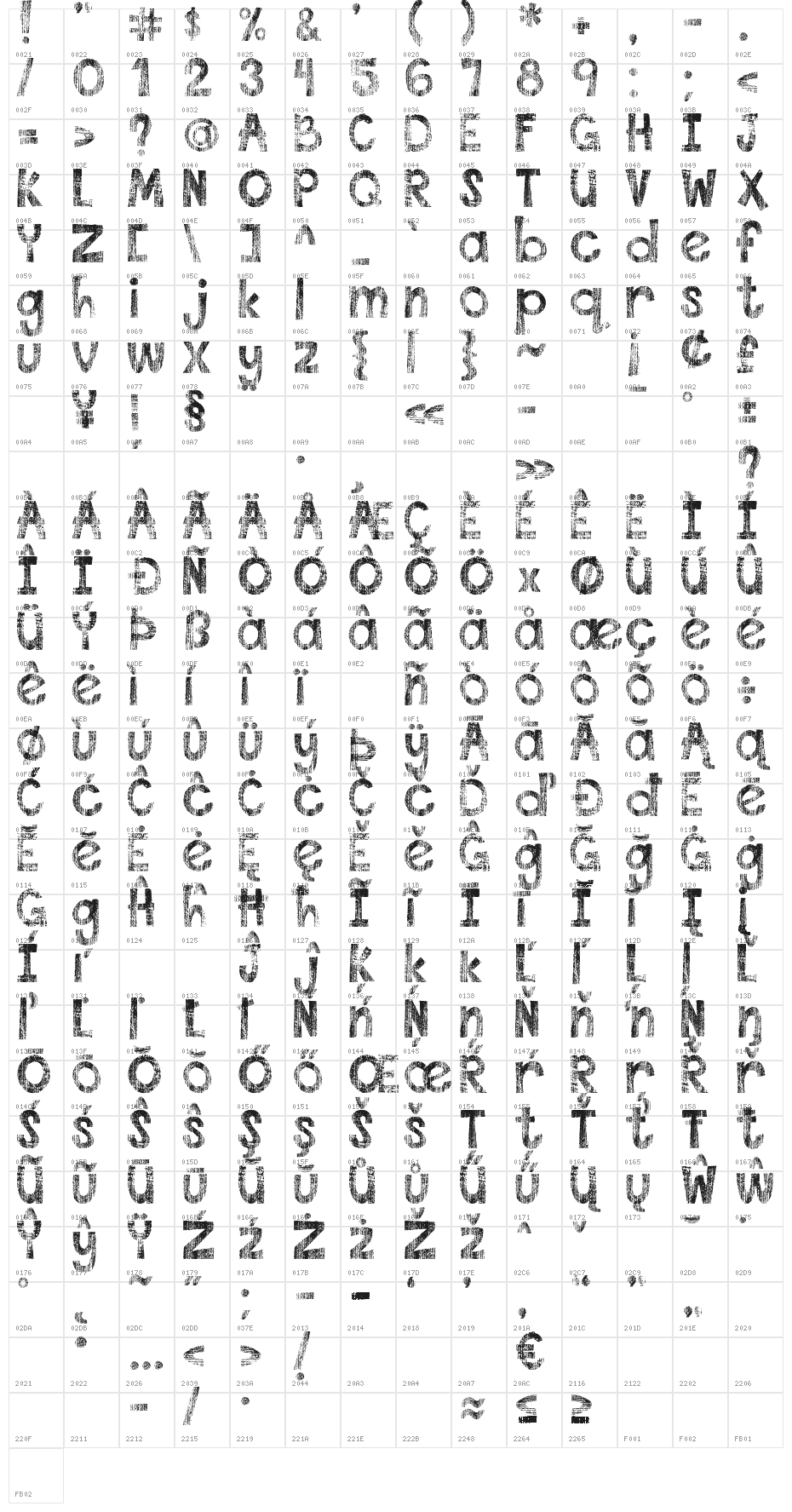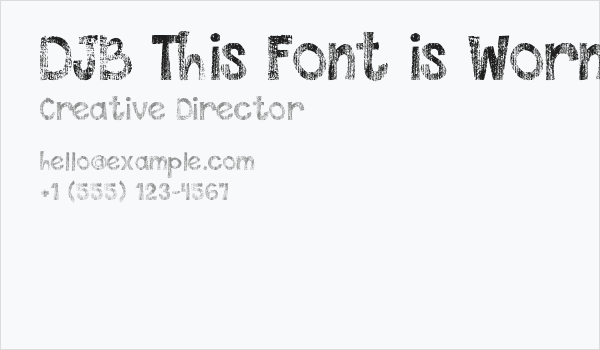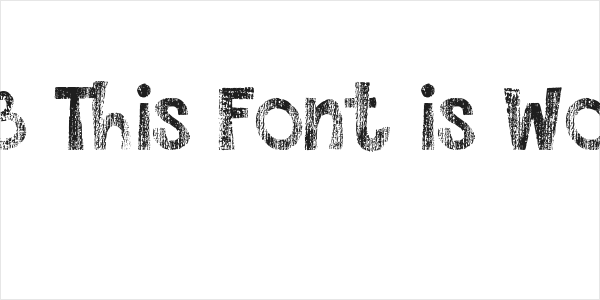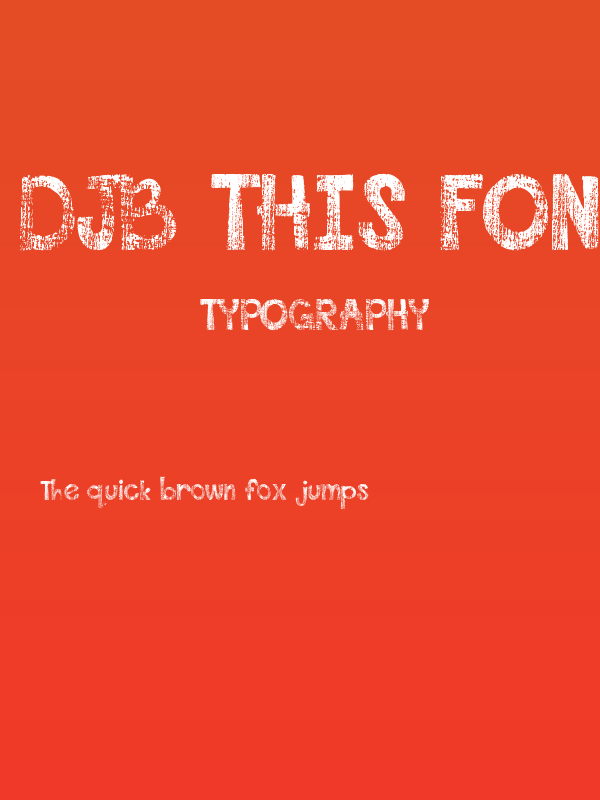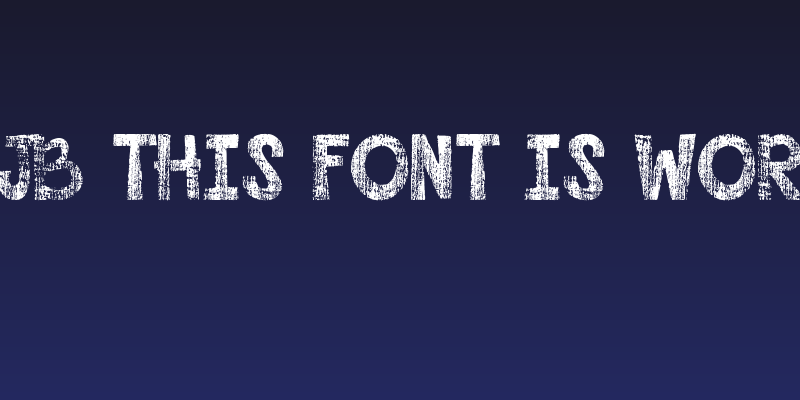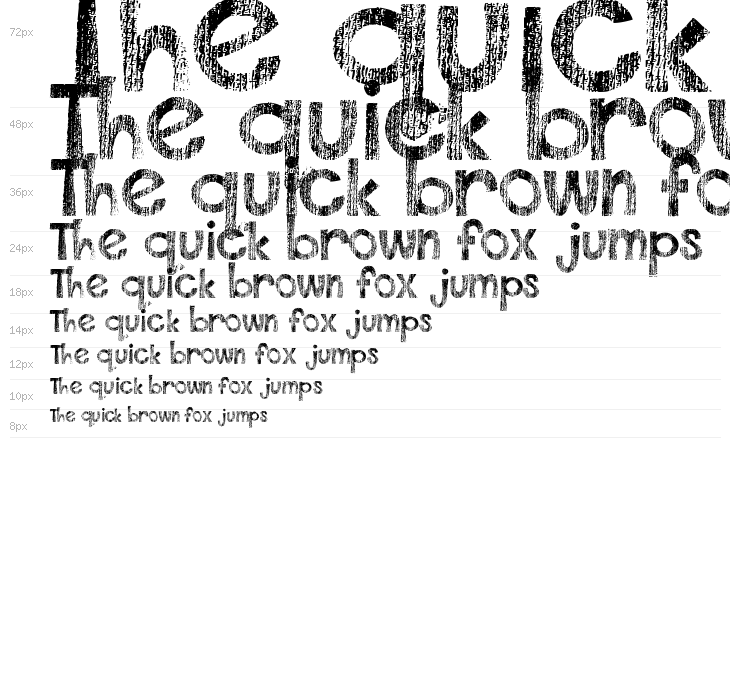
DJB This Font is Worn Font
DJB This Font is Worn Description
| Proposed Projects | Ideal for vintage posters, retro-themed branding, rustic packaging, and any design needing a weathered look. |